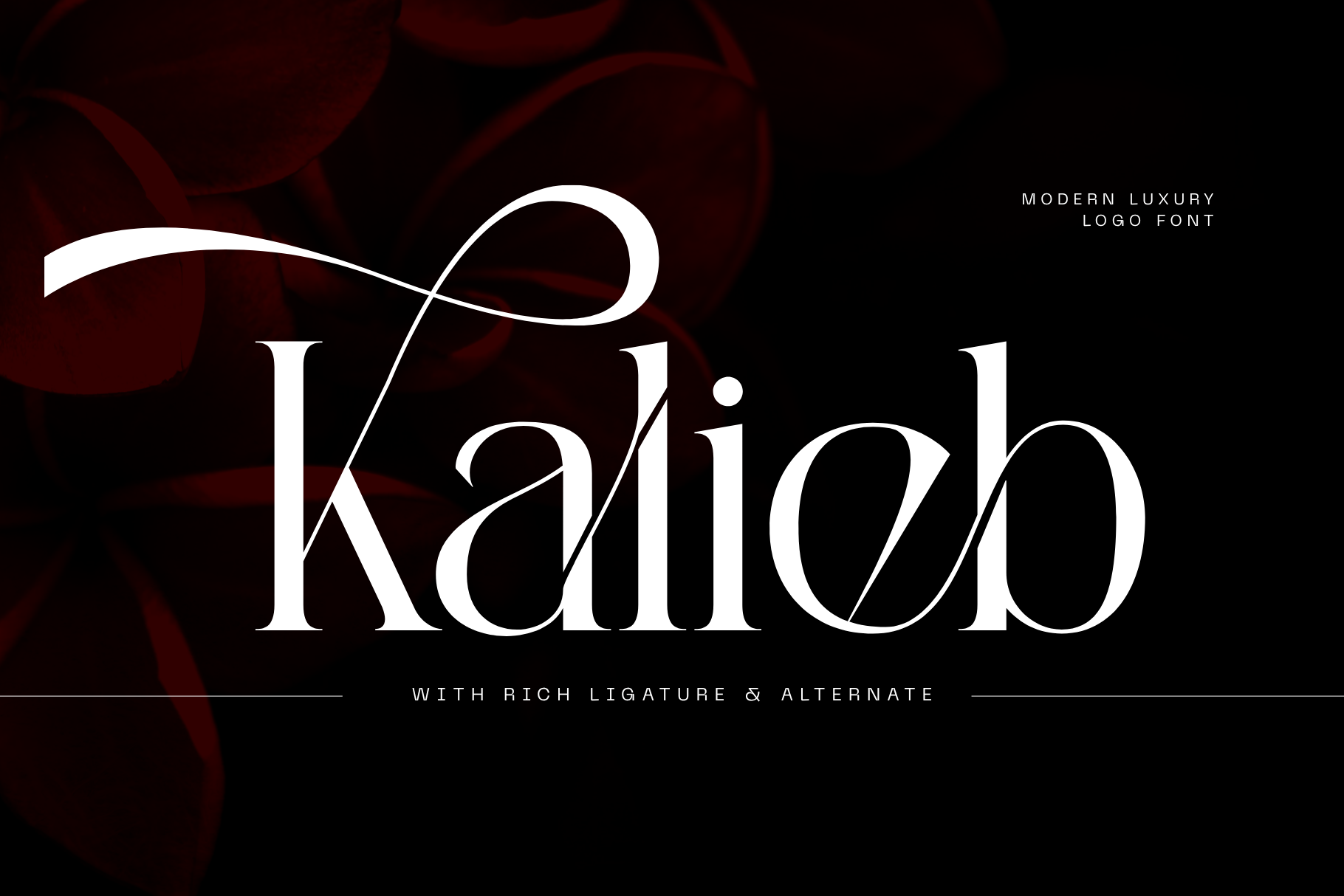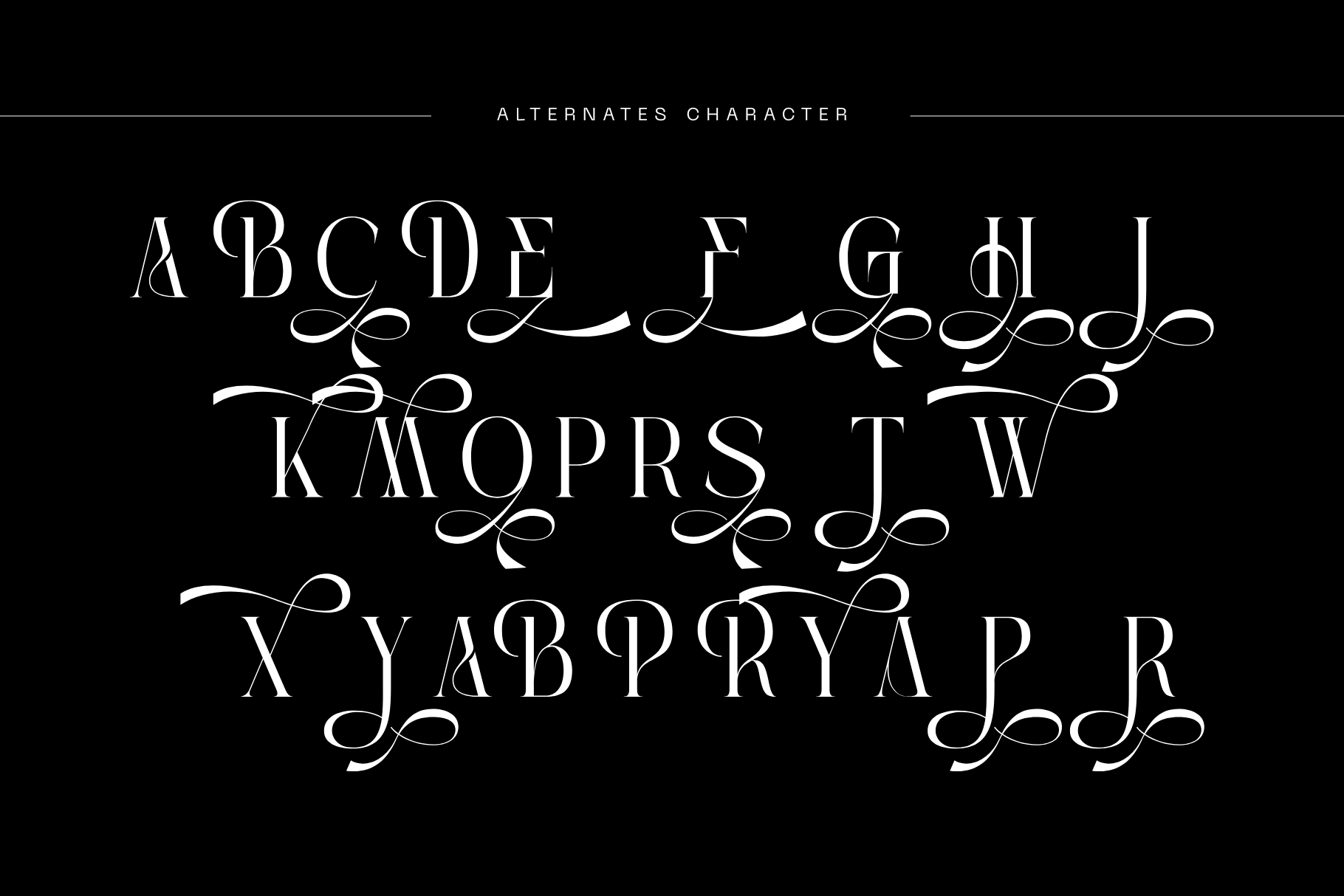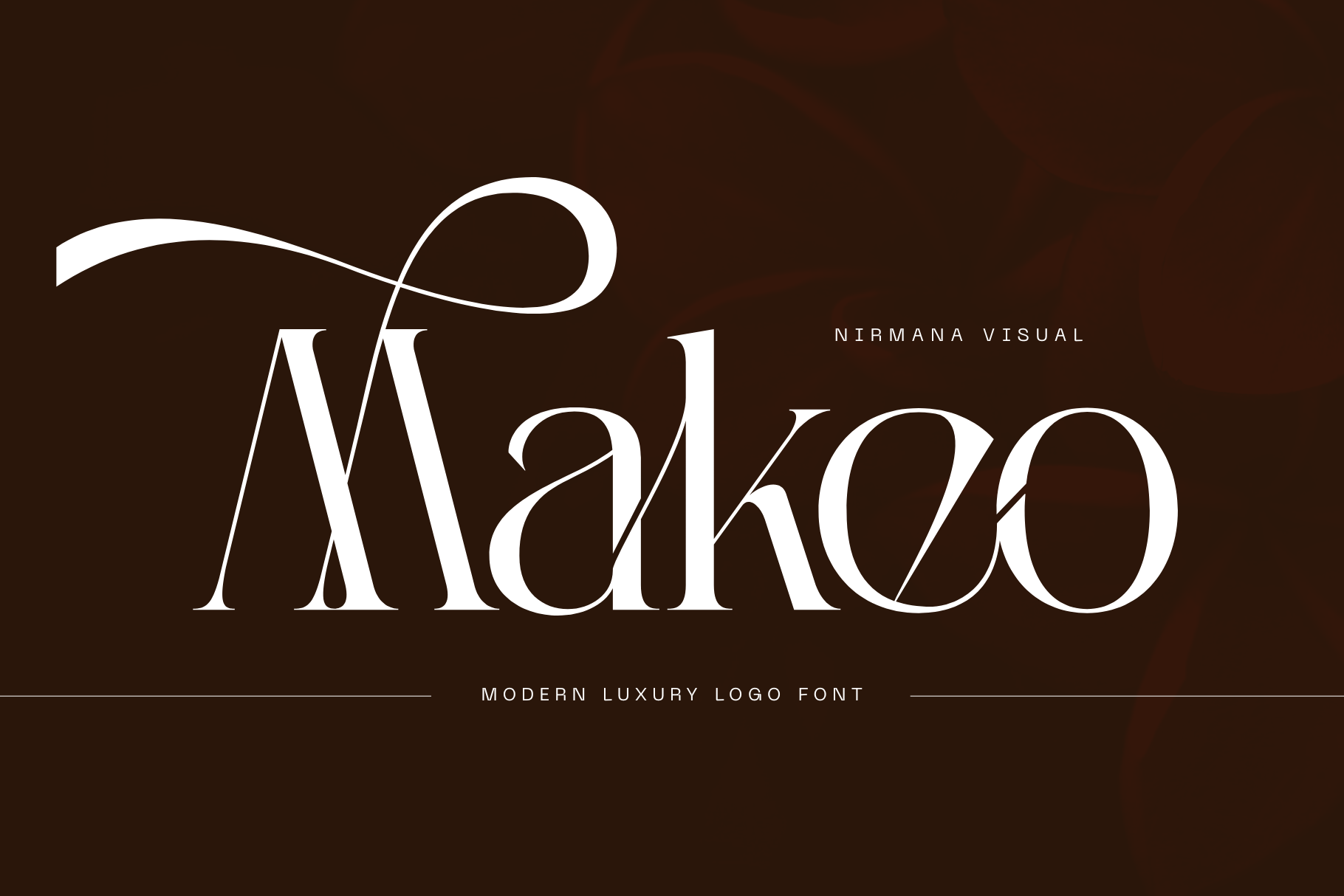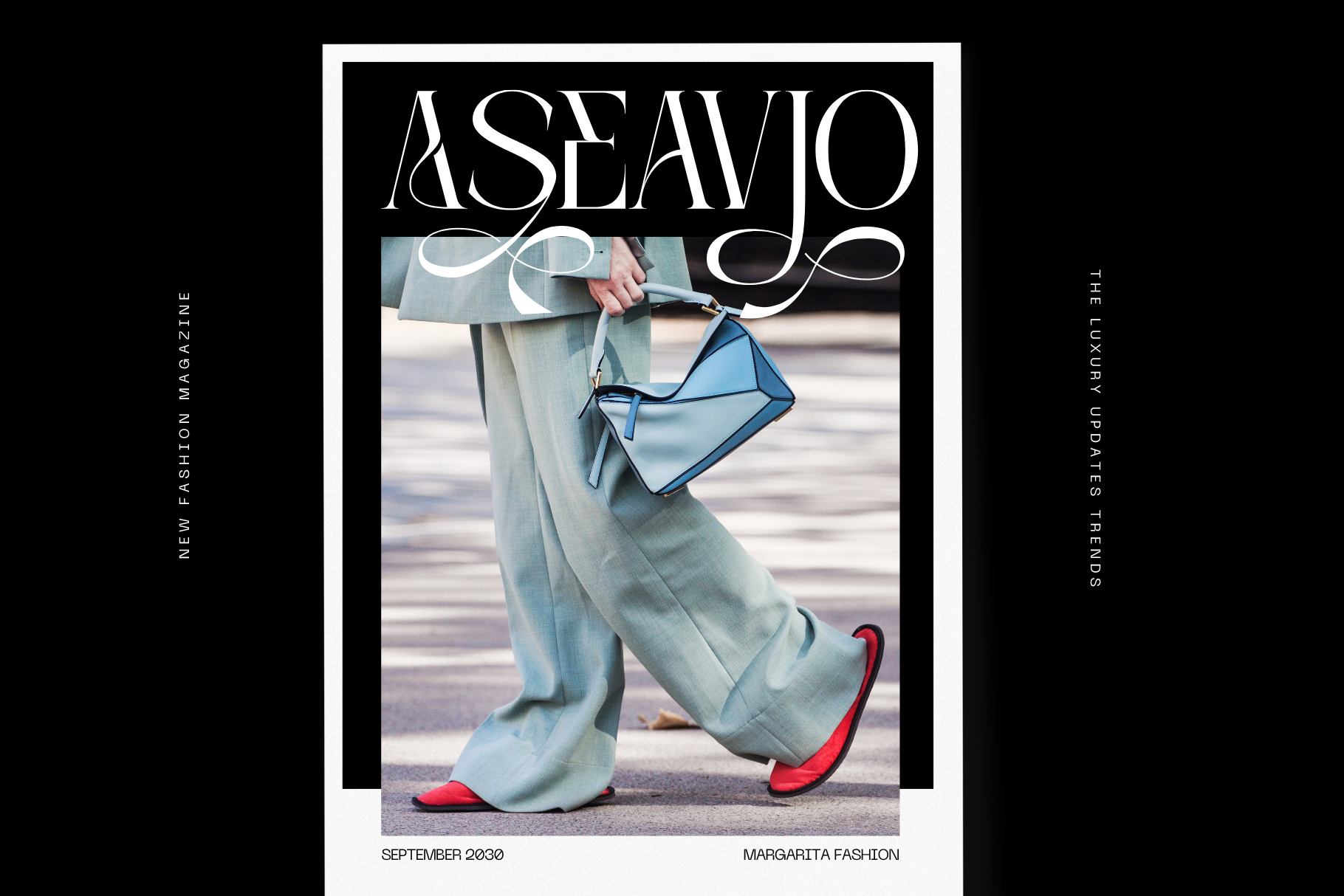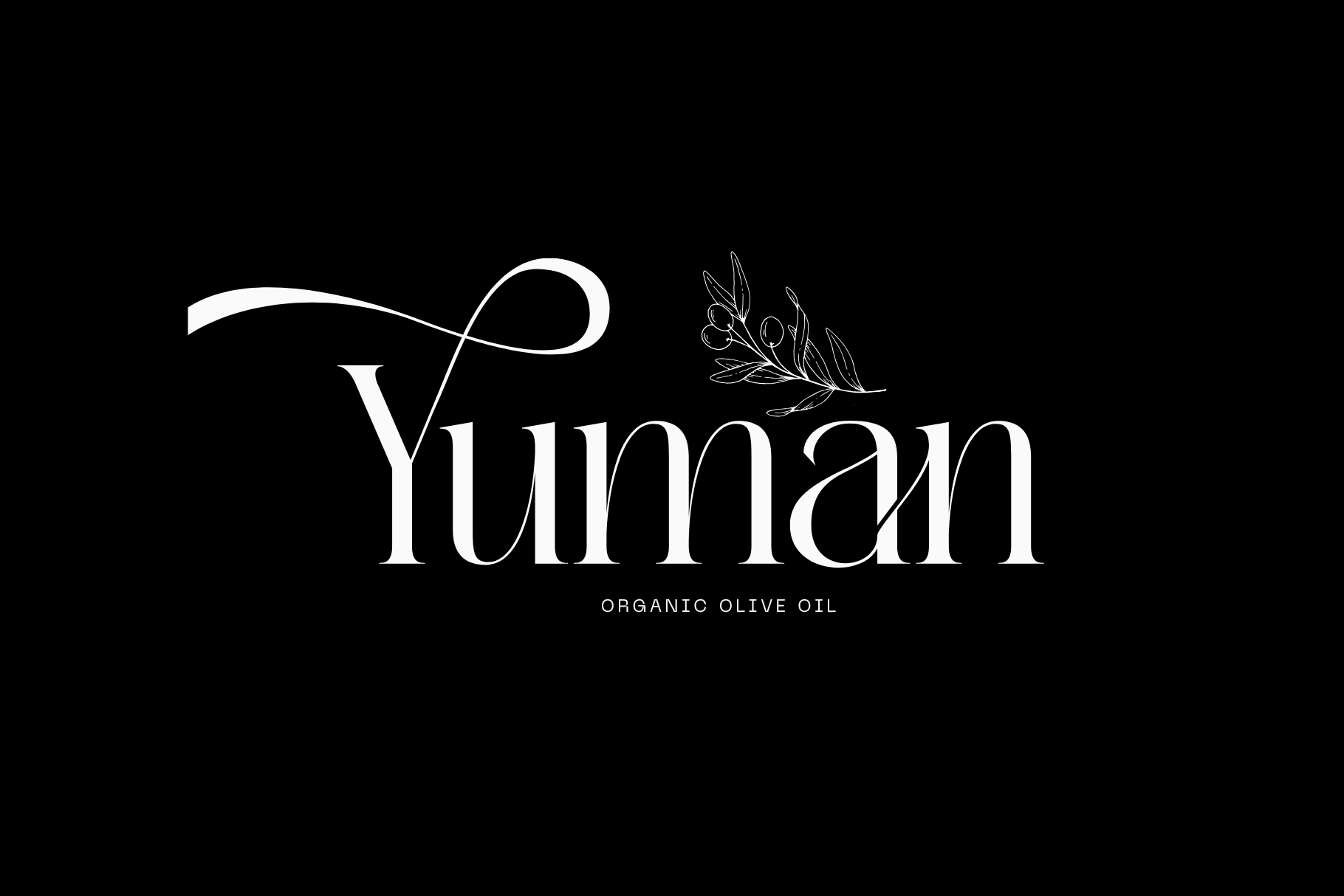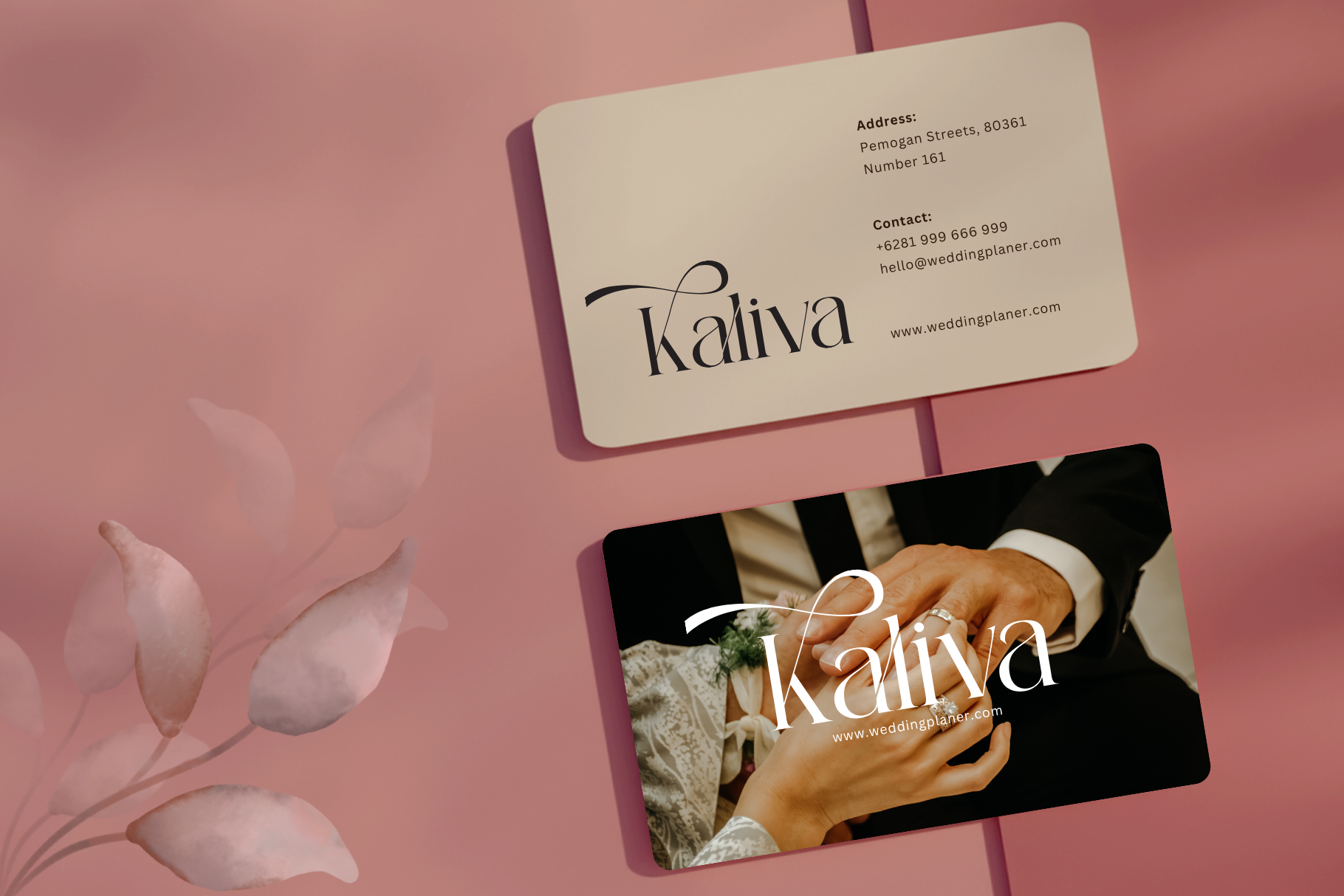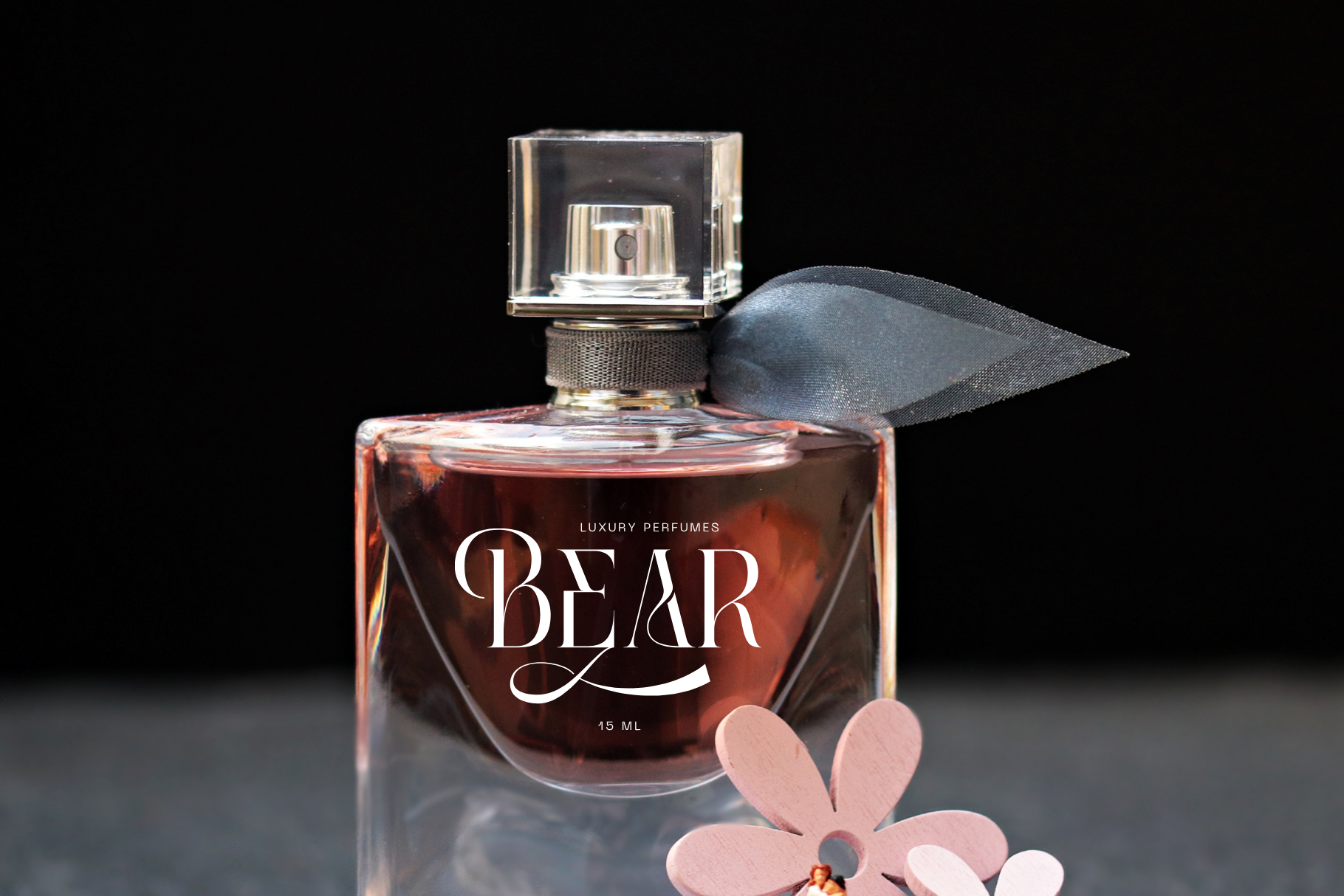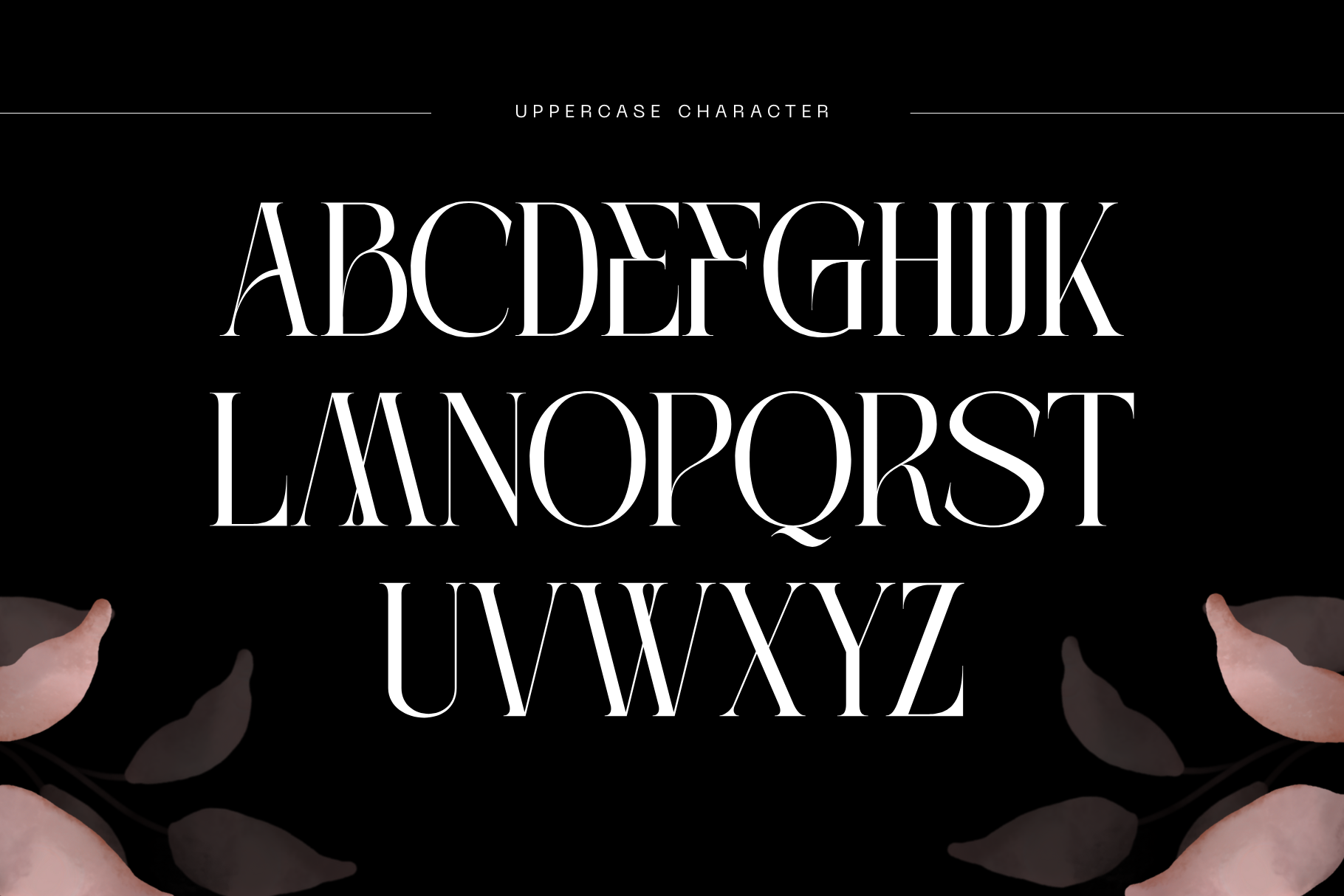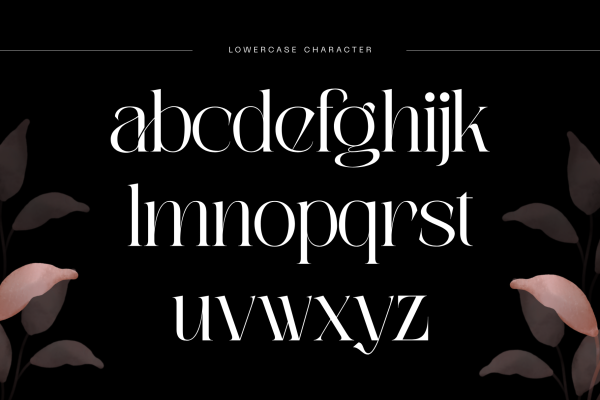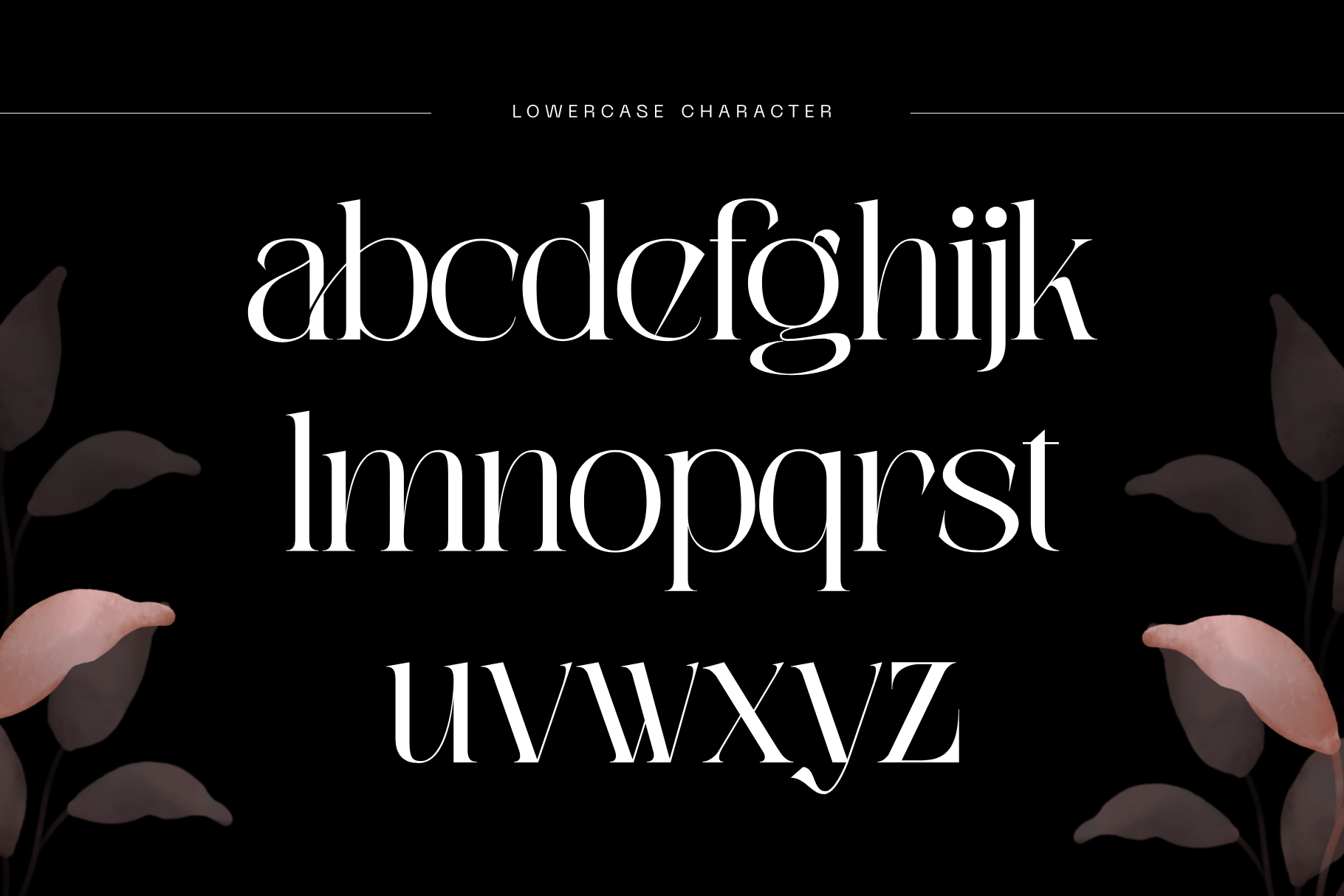
Kalieb Luxury – Branding Logo Font
Overview
Kalieb Luxury offers beautiful typographic harmony for a diversity of design projects, including logos & branding, social media posts, advertisements & product designs.
Features :
• Multilingual Support
• Regular & Italic Font
• Luxury Elegant Logo Font With Ligatures and Alternates
Kalieb Luxury is a refined serif font crafted for premium logos and branding. With elegant Regular and graceful Italic styles, it exudes sophistication and timeless class. Perfect for high-end fashion, beauty, and lifestyle brands, Kalieb Luxury brings a touch of exclusivity to every design. Its sleek curves and stylish presence make it a standout choice for those who value detail, elegance, and luxury in visual identity.